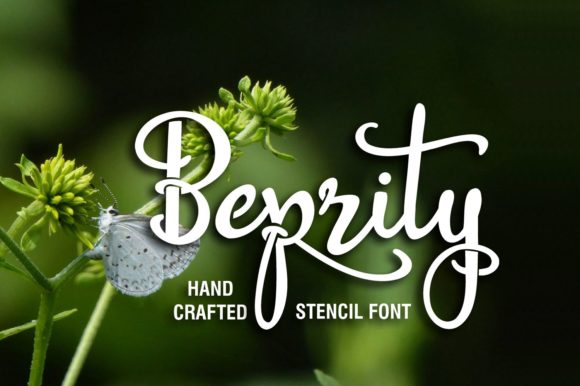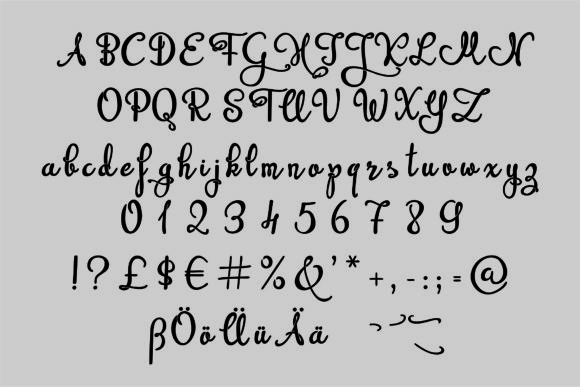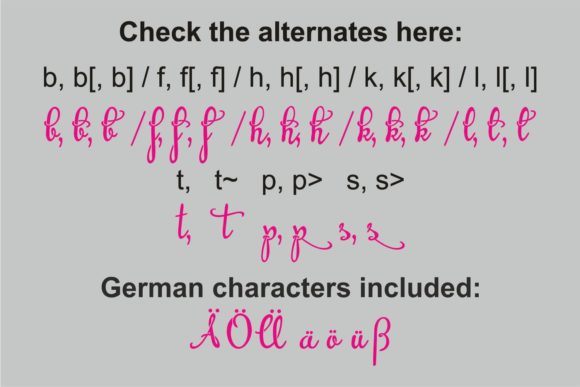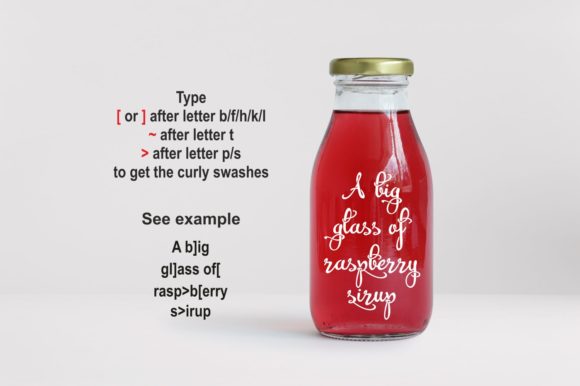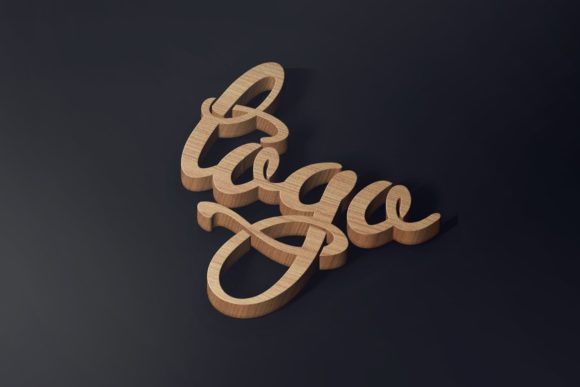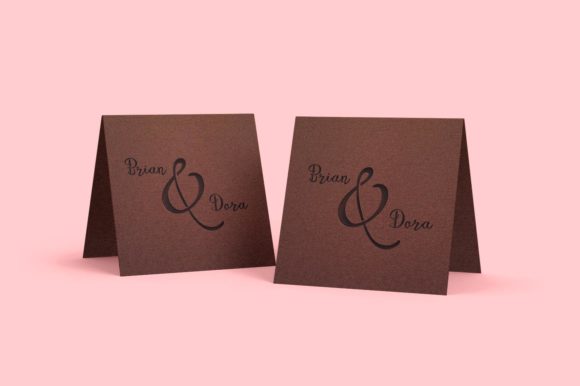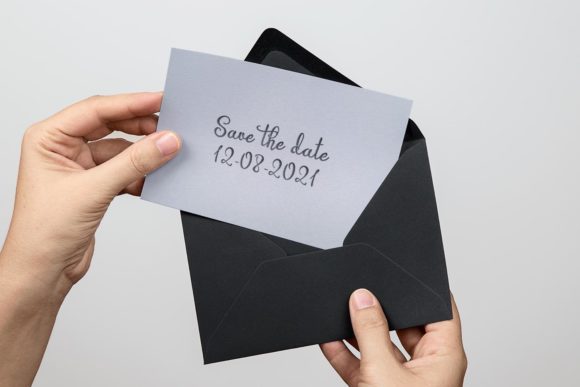
Beprity Stencil Font
About Beprity Stencil Font
Beprity Stencil is an awesome script font. Whether you’re looking for fonts for Instagram or calligraphy scripts for DIY projects, Beprity Stencil will turn any creative idea into a true piece of art!